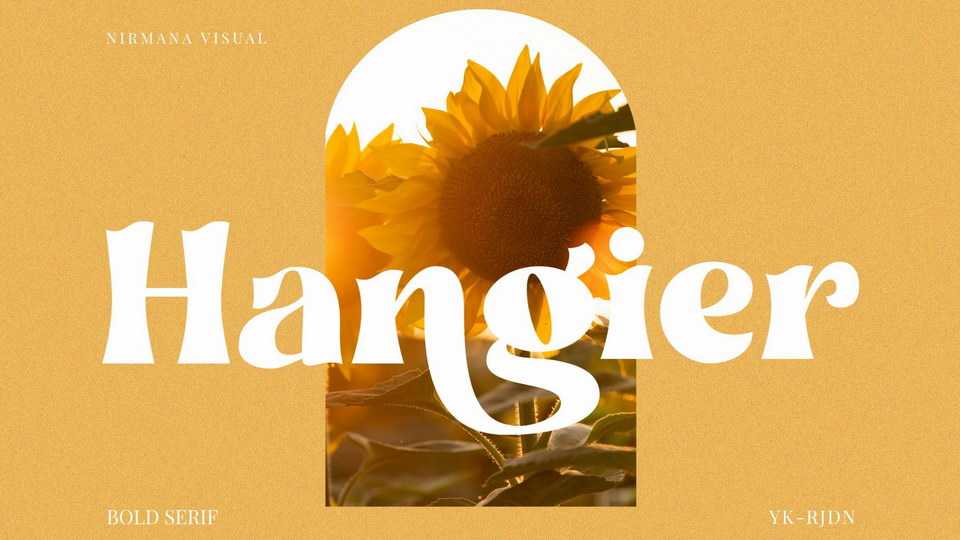
Download Hangier font, a bold serif vintage typeface with with beautiful ligatures. Hangier is a very versatile font that works great in large and small sizes.